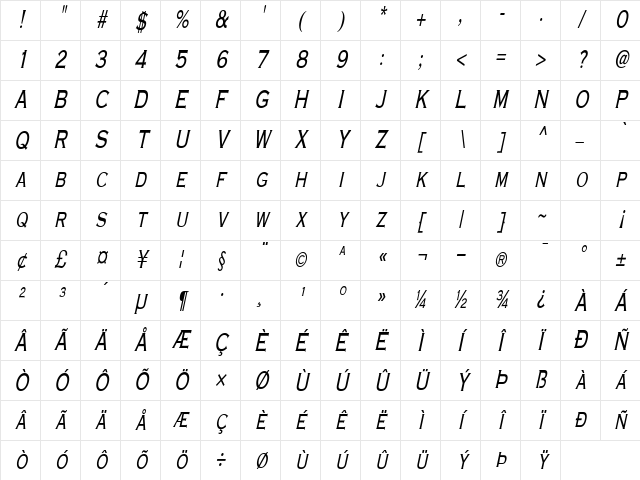
MetalcutCondensed Oblique
MetalcutCondensed Family
Design Context for MetalcutCondensed
MetalcutCondensed is a composed and adaptable typeface that performs quietly and consistently across a wide range of design contexts. The slanted form adds forward momentum and visual energy. Its narrow stance lets it pack a punch even in space-constrained designs.
Pro Tip: Use MetalcutCondensed for emphasis, pull quotes, and subheadings where its slanted energy can add rhythm to the layout.